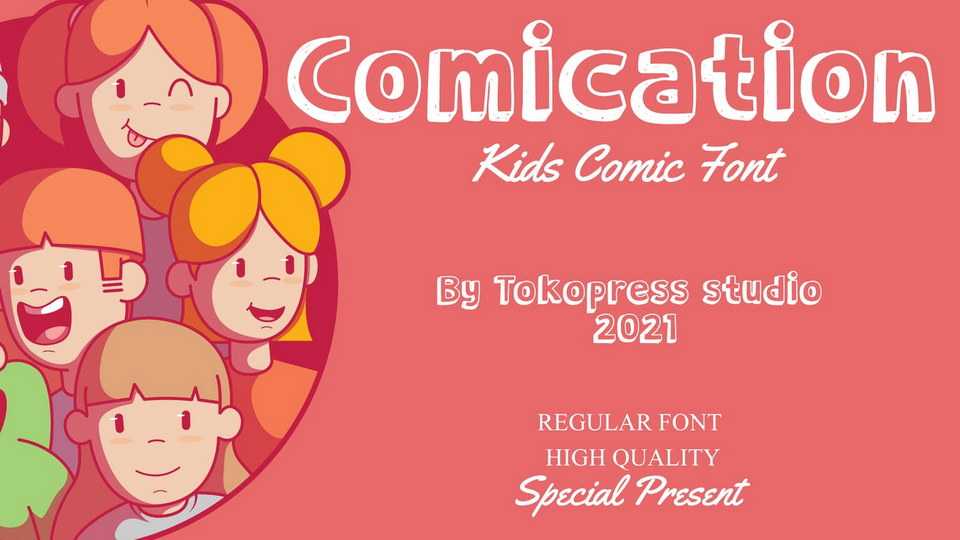
Download Comication font, a cute kids typeface. It looks like 3D writing with all that clumsiness that children have in their color blocking. A perfect touch for any children related projects.